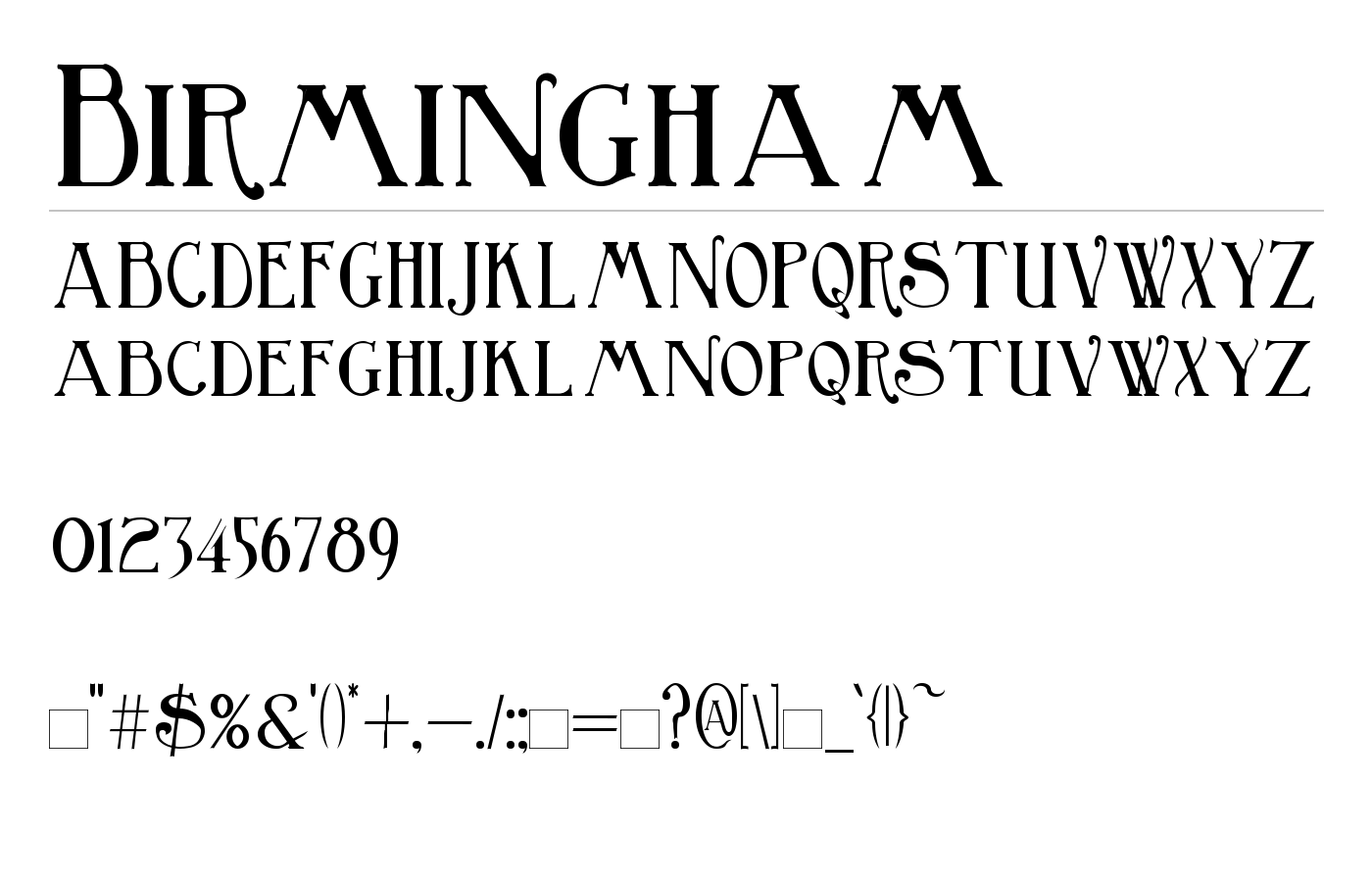
Birmingham Font is a distinctive serif typeface with a narrow, elegant structure and high contrast between thick and thin strokes. Its sharp, bracketed serifs and unique, stylized letterforms give it a refined, vintage character ideal for luxury branding, editorial headlines, and artistic logos that require a touch of sophistication and personality. This font works best in display settings where its decorative details can shine and convey a sense of timeless elegance.
Birmingham Font
About Birmingham Font